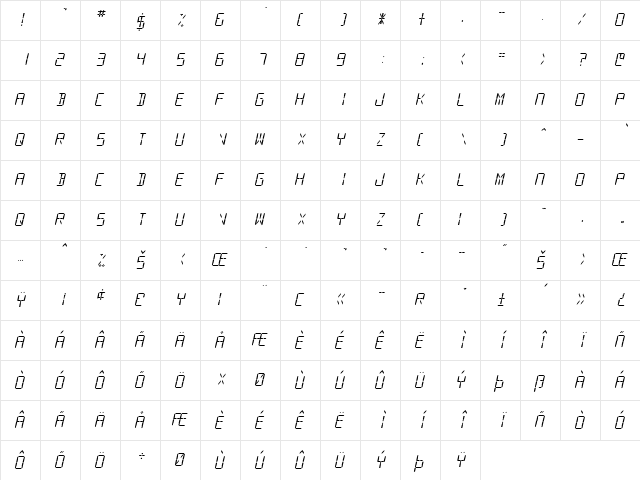
SF Digital Readout Medium Oblique
Design Context for SF Digital Readout Typeface
SF Digital Readout channels digital-age aesthetics through its sharp, structured letterforms — ideal for brands that want to signal innovation. The dynamic lean of this cut emphasises speed and emphasis in any layout.